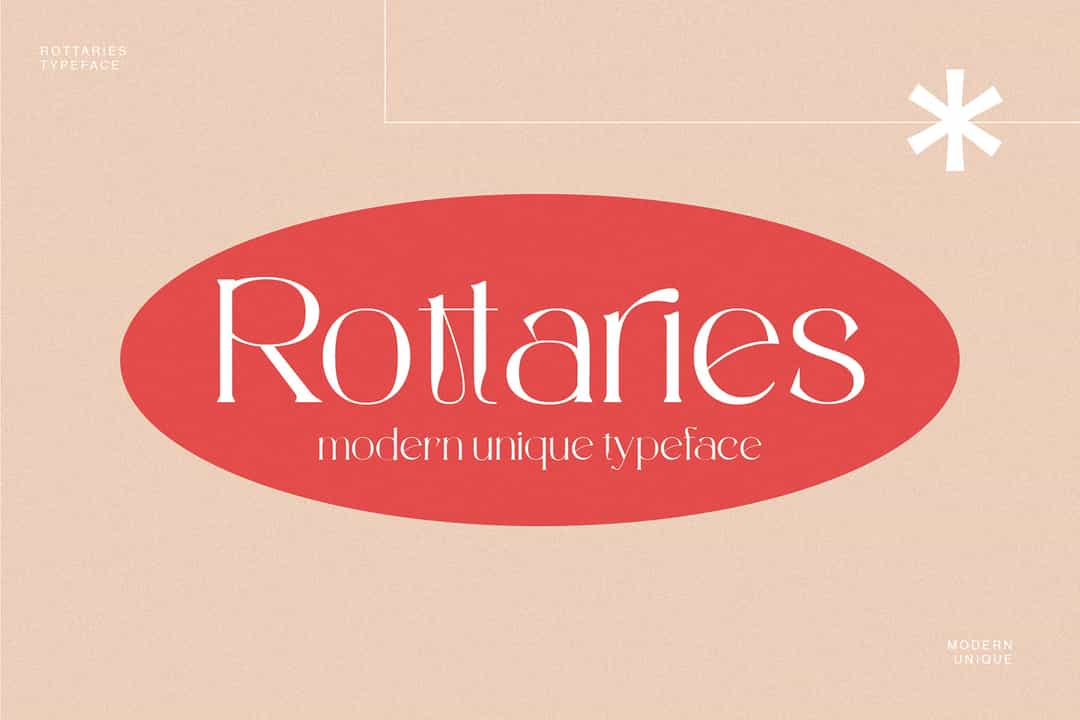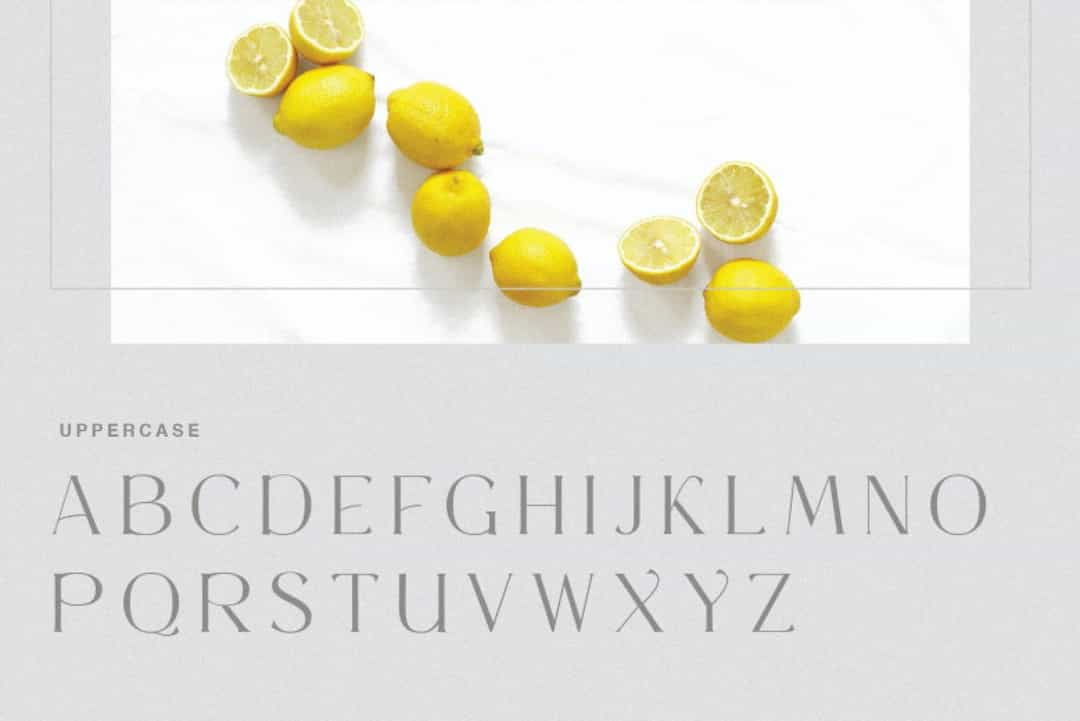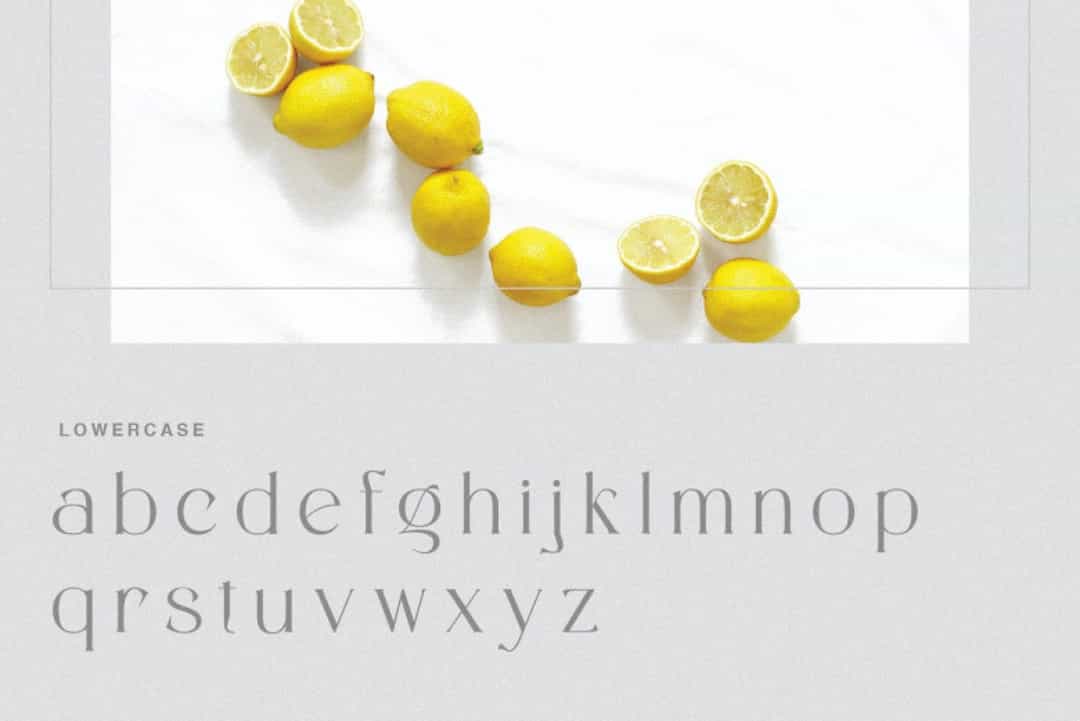
Rottaries is an elegant, subtle, and refined serif typeface developed by BrandSemut that will match various designs effortlessly due to its simplicity. Rottaries is sure to become your go-to font no matter the event!